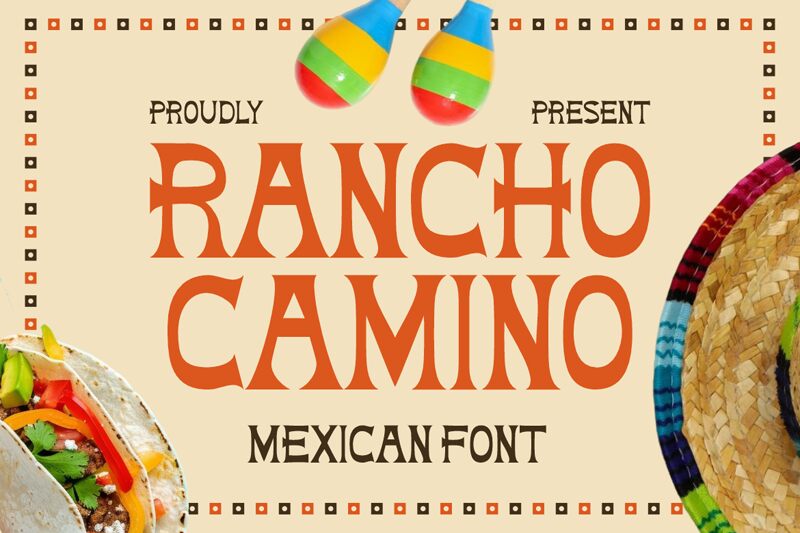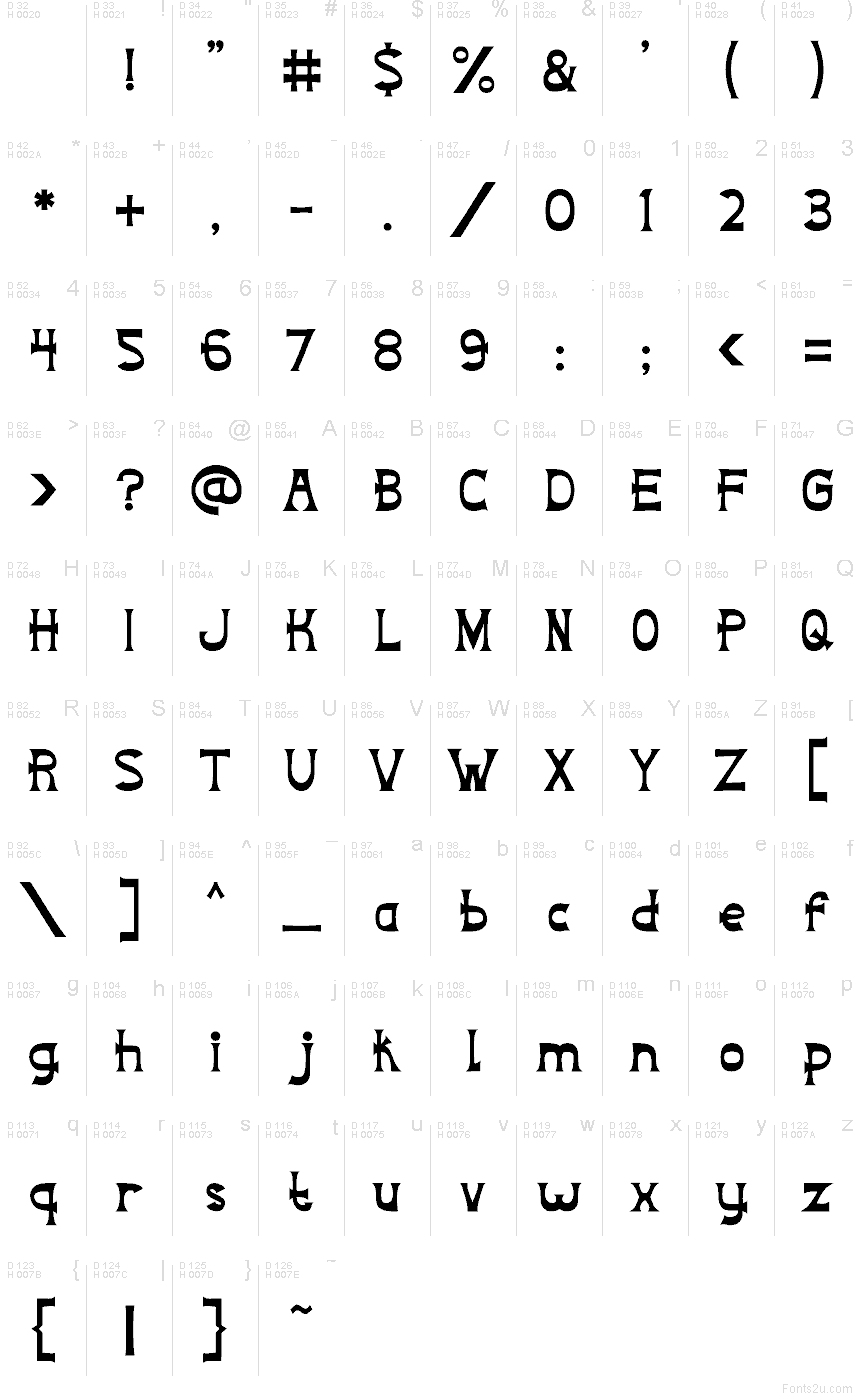
Rancho Camino
Rancho Camino by Putracetol Studio is a free Mexican display font with a theatrical cantina flavor. The letters mix broad, soft curves with sharp, flared points and high-contrast strokes, giving the font a hand-painted sign feel that leans folkloric rather than rustic.
It fits naturally in restaurant branding, fiesta posters, label work, music event graphics, and packaging where a free font with regional character helps set the mood fast. Use it for short headlines, menu titles, cover lines, or logo-style wordmarks, especially when you want the pointed endings and rounded interior shapes to bring a lively, old-town street-sign rhythm.